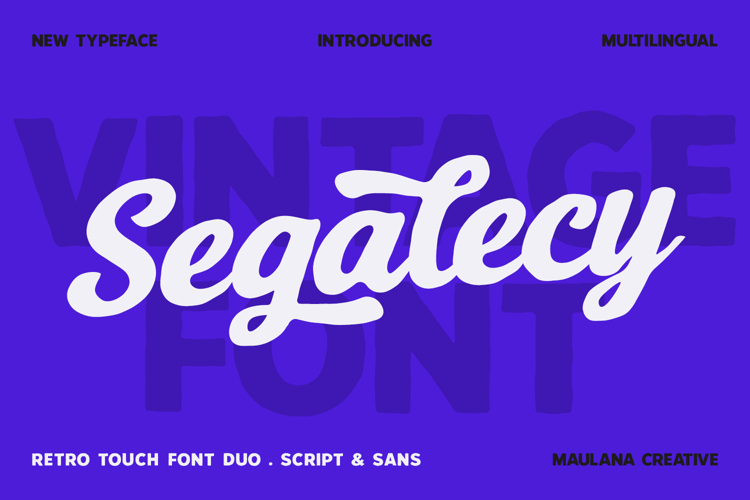
Segalecy Retro Vintage Font Duo Script Sans
Segalecy is a versatile font duo that captures the authentic essence of retro aesthetics and vintage craftsmanship. This pairing features a bold, hand-drawn Sans and a fluid, rhythmic Script, designed to complement each other perfectly. With its slightly irregular edges and organic texture, Segalecy brings a "hand-stamped" feel to any project. It is the ideal choice for creating classic logos, whiskey labels, brewing company branding, garage-style signage, and nostalgic apparel designs. Whether you are aiming for a 1950s diner vibe or a rugged artisanal look, this duo delivers a timeless, high-quality finish.
- Segalecy Script include lowercase and uppercase.
- Segalecy Sans include uppercase.
- Script and Sans include numbers, punctuation, and symbols.
- Script include alternate for a natural handwriting flow.
- Sans include ligature and alternate.
- Multilingual Support.